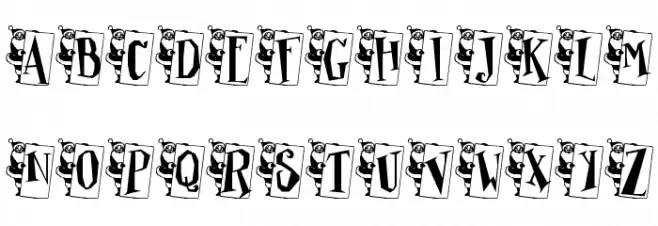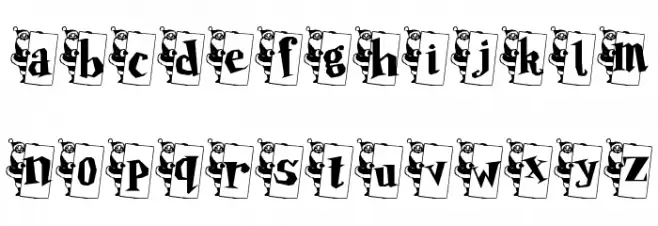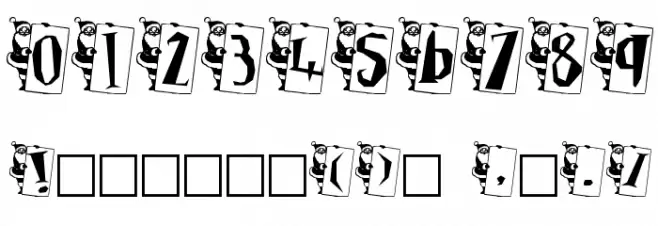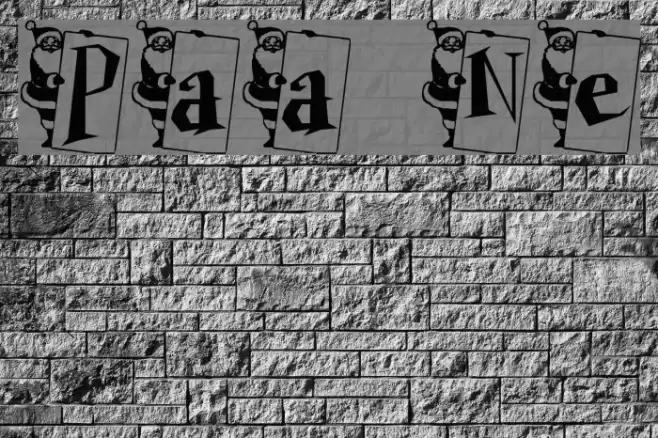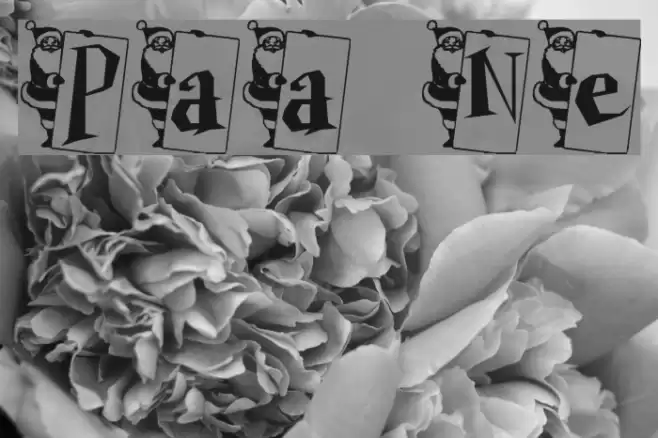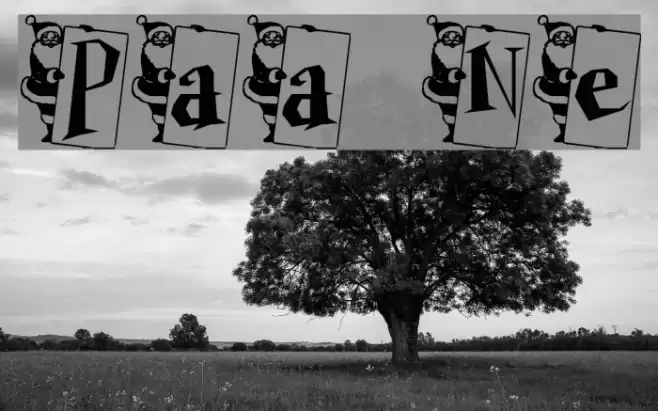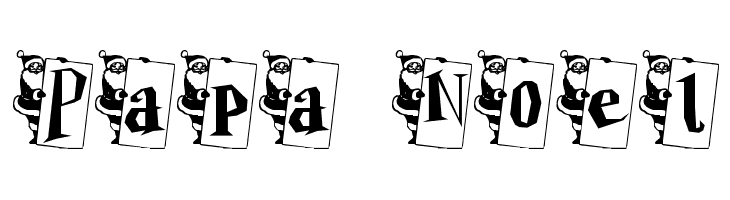
Papa Noel
This playful and whimsical font features each character held by a cartoonish Santa Claus figure, adding a festive and humorous touch. The letters are bold and slightly slanted, with a hand-drawn feel that enhances their charm. The uppercase and lowercase characters maintain a consistent style, with the numbers and special characters following suit. The overall design is decorative and eye-catching, making it perfect for holiday-themed projects. The characters are well-spaced, ensuring readability while maintaining the playful aesthetic.
A festive, playful font with characters held by cartoon Santas, perfect for holiday themes.
- Proposed Projects: Ideal for Christmas cards, festive banners, holiday invitations, and seasonal marketing materials.
- Overall Style: Decorative